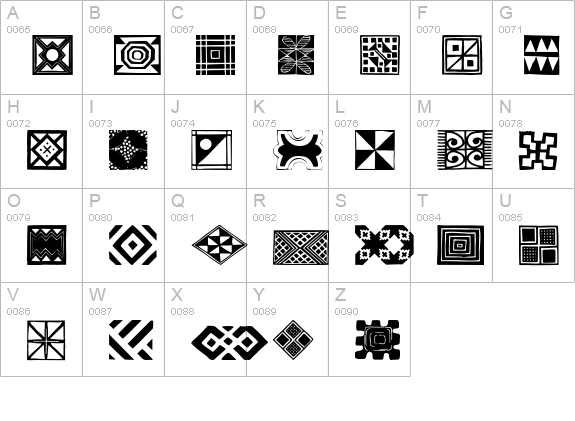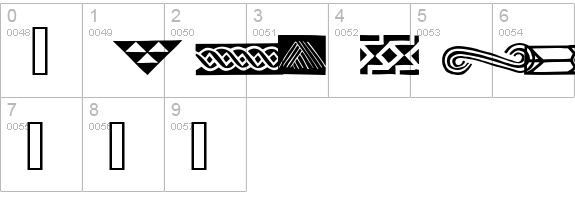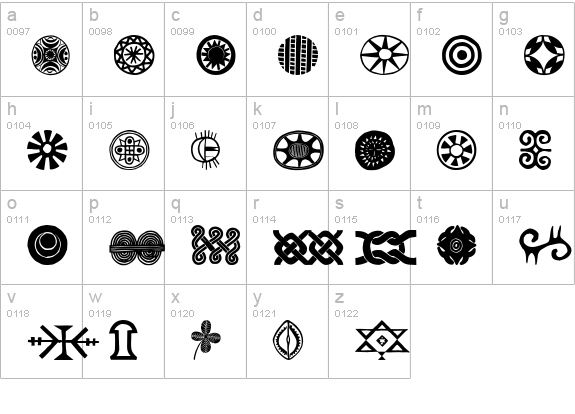
African Ornaments One Font Details
African Ornaments One font is a stunning display typeface inspired by traditional African patterns and designs. This unique font features intricate and intricate ornaments that add a touch of cultural richness to any project. The elaborate details and intricate shapes make this font perfect for adding a bold and eye-catching element to your designs. Best of all, African Ornaments One font is available for free download at FontsMarket.com. This means you can easily access this beautiful font and incorporate it into your creative projects without any cost. Whether you're working on a branding project, poster design, or any other creative endeavor, African Ornaments One font is sure to make a memorable impression. Download it today and elevate your designs with the beauty of African-inspired ornaments.